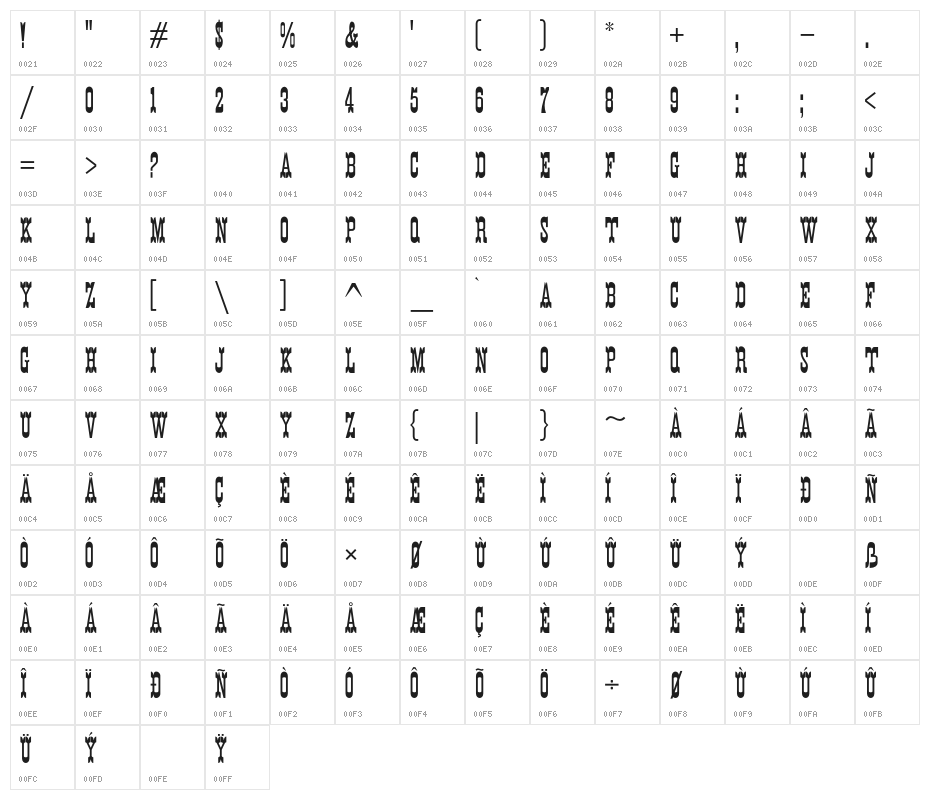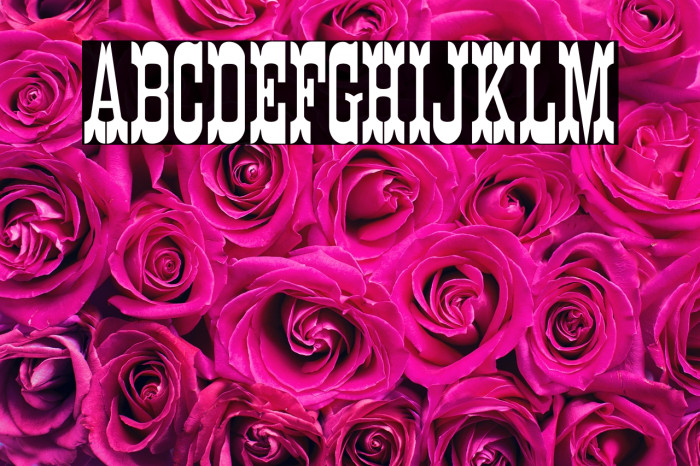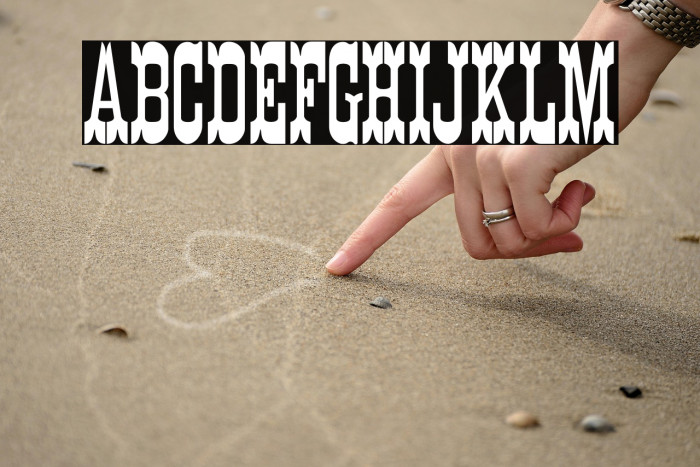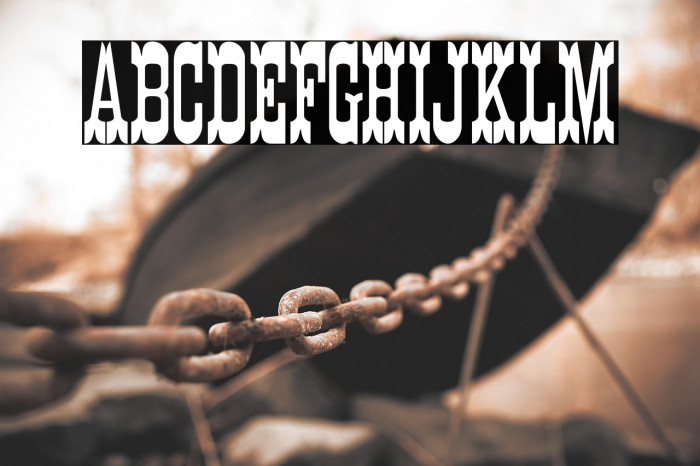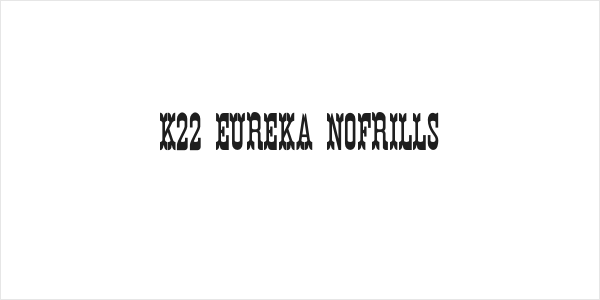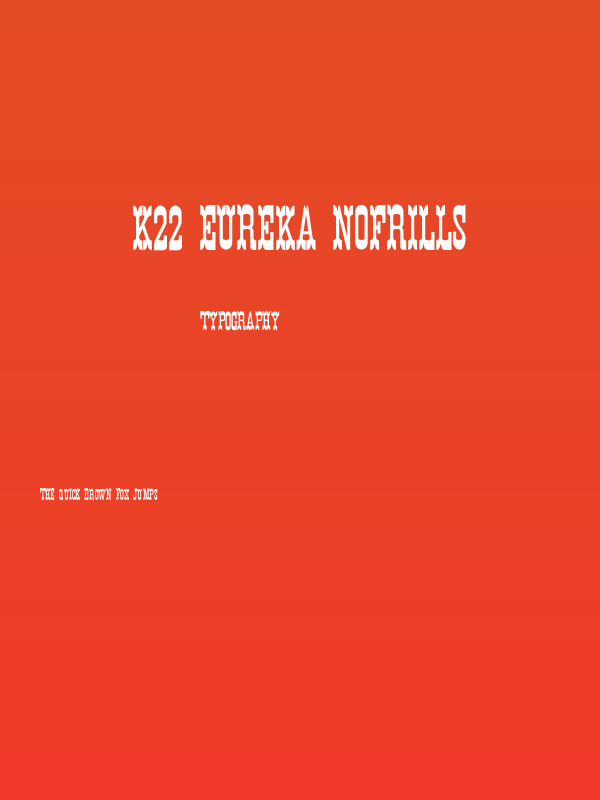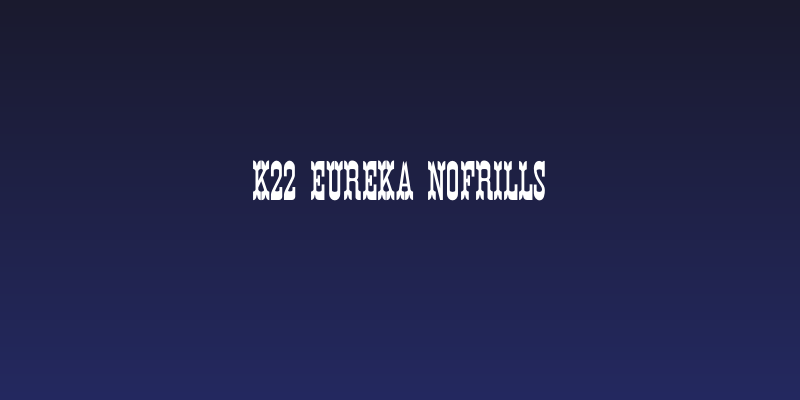
K22 Eureka NoFrills Font
K22 Eureka NoFrills Description
This font features a bold and decorative style with a strong presence. The characters are designed with thick strokes and unique, intricate detailing that gives them a vintage, Western feel. The uppercase letters are particularly striking, with sharp angles and a sense of symmetry that adds to their boldness. The numbers and special characters maintain this decorative theme, ensuring consistency throughout the typeface. This font is ideal for projects that require a standout, eye-catching design element.
| Proposed Projects | Ideal for posters, signage, branding, and any project needing a bold, vintage aesthetic. |